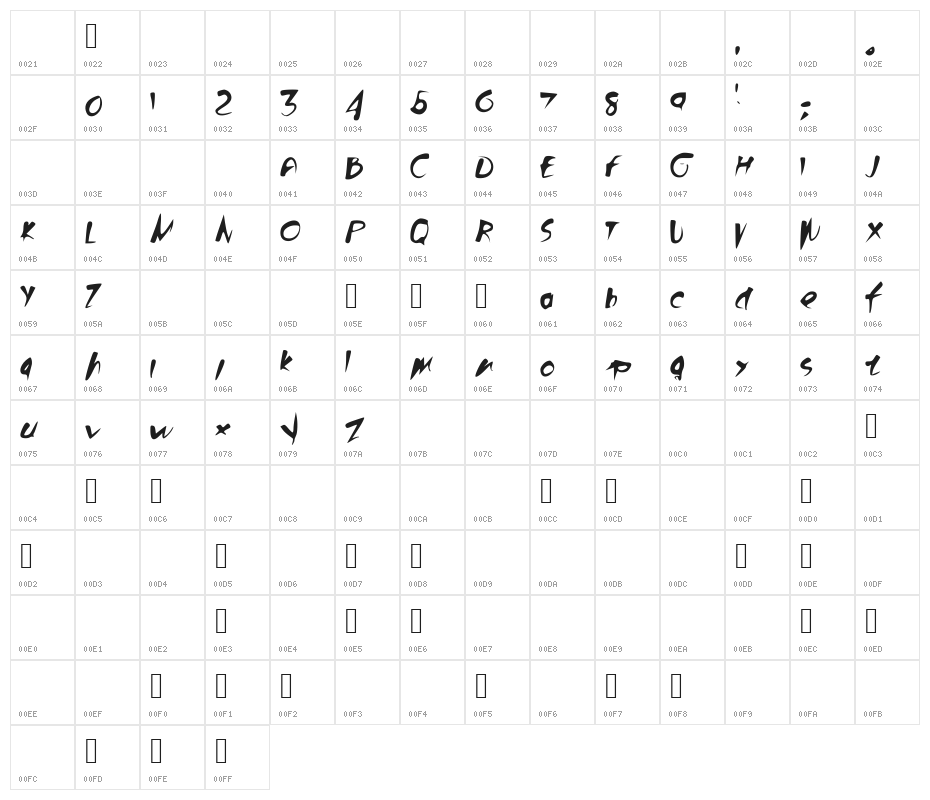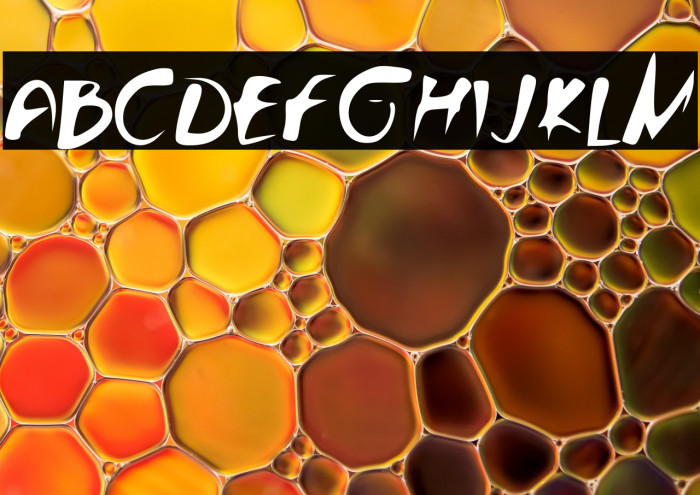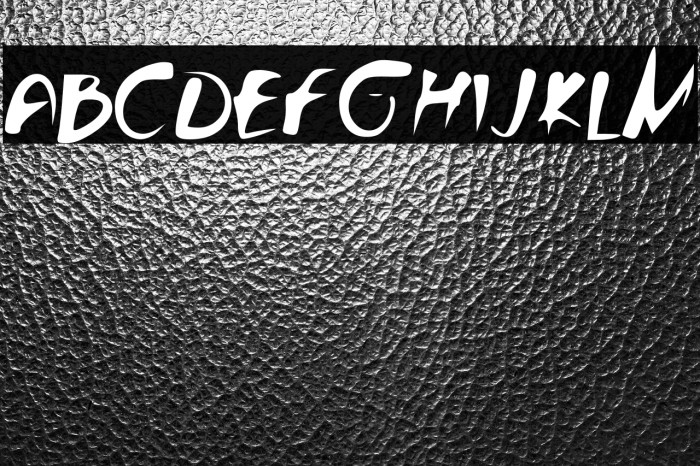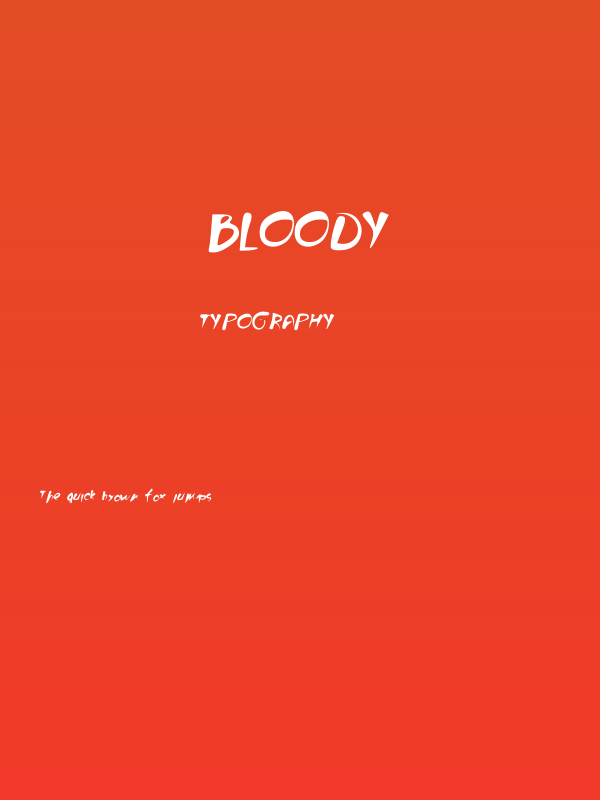
Bloody Font
Bloody Description
This font features a bold and dynamic script style, characterized by its fluid and energetic strokes. The letters have a hand-drawn appearance, with varying thickness that adds a sense of movement and flair. The uppercase letters are particularly striking, with exaggerated curves and sharp angles that create a dramatic effect. The lowercase letters maintain a consistent style, complementing the uppercase with their own unique flair. Numbers and special characters follow the same expressive design, making the font versatile for creative projects. Its overall style is both modern and artistic, suitable for designs that require a bold statement.
| Overall Style | Modern, Artistic |
| Proposed Projects | Ideal for posters, album covers, branding, and any project needing a bold, artistic touch. |